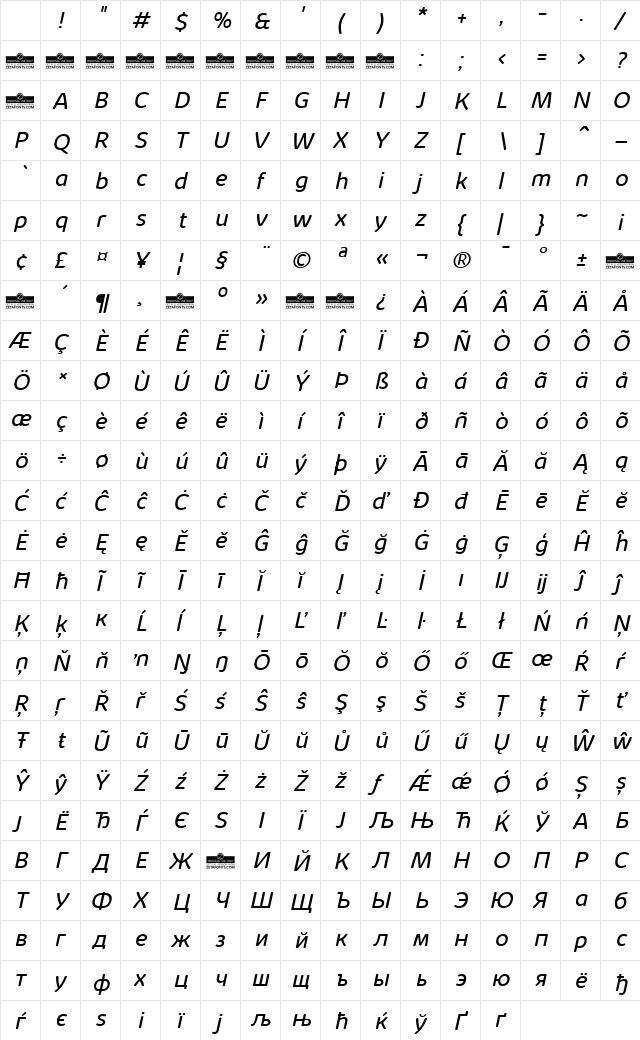
Complete Kabrio Abarth Book Italic glyph index. Displaying only characters natively supported by Kabrio Abarth Book Italic font.
Kabrio Abarth is a composed and adaptable typeface that performs quietly and consistently across a wide range of design contexts. The slanted form adds forward momentum and visual energy.
Pro Tip: Use Kabrio Abarth for emphasis, pull quotes, and subheadings where its slanted energy can add rhythm to the layout.